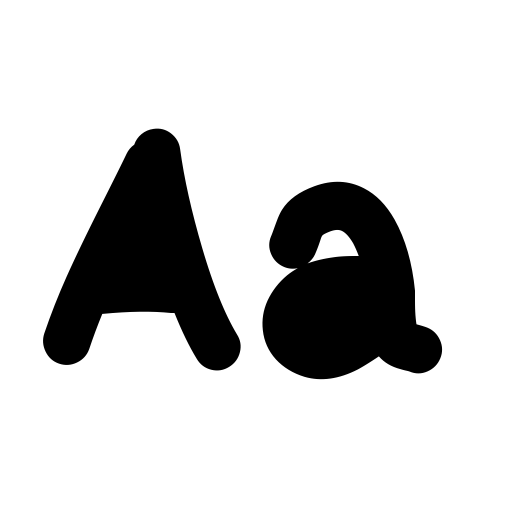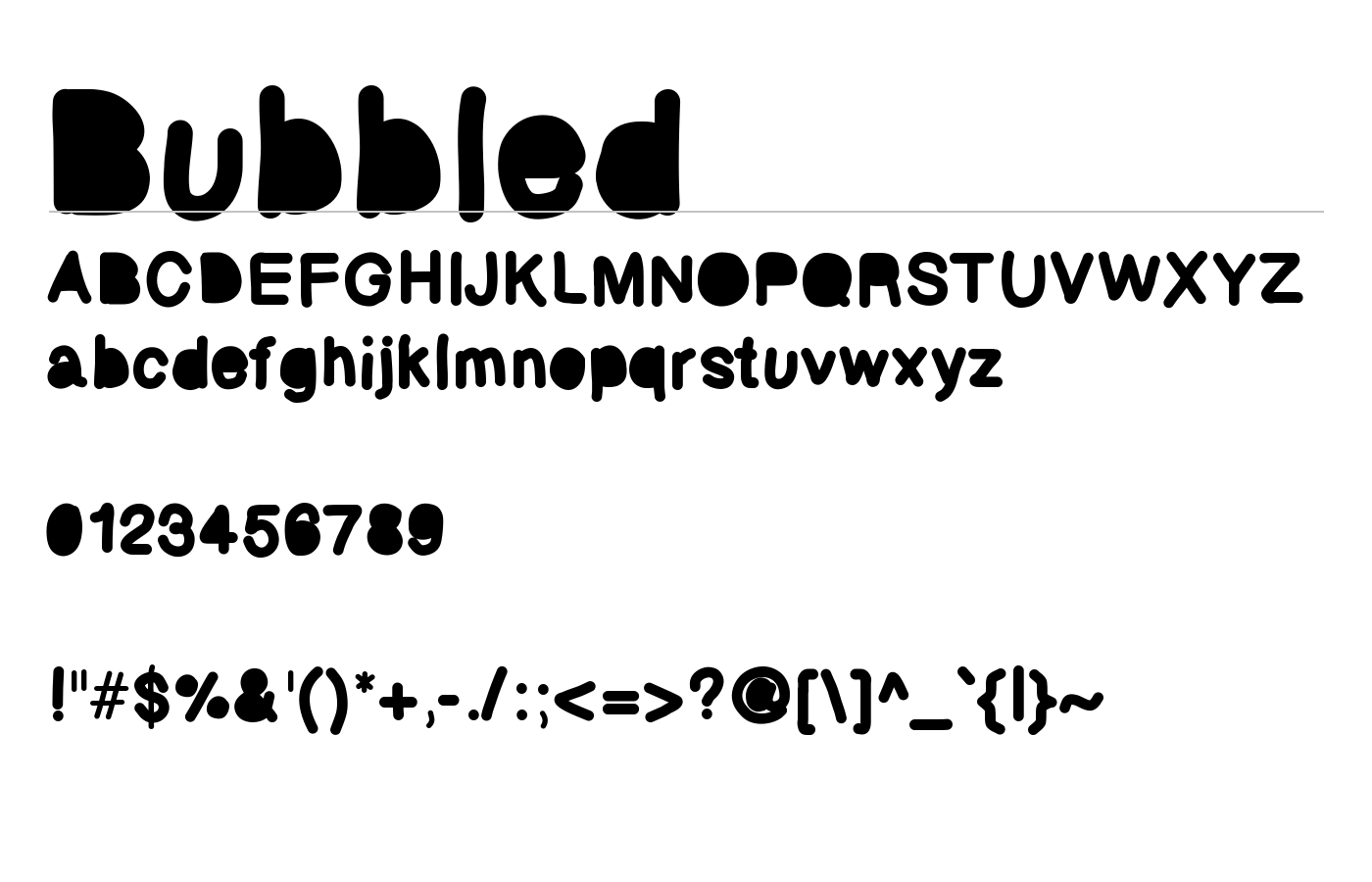
Bubbled Font is a playful and rounded sans serif typeface characterized by its thick, bubbly letterforms with low contrast and soft edges. Its casual, friendly style makes it ideal for informal branding, children's materials, and fun packaging, where a lighthearted and approachable feel is desired. This font works best in headlines and logos that want to convey warmth and creativity.
Bubbled Font
About Bubbled Font